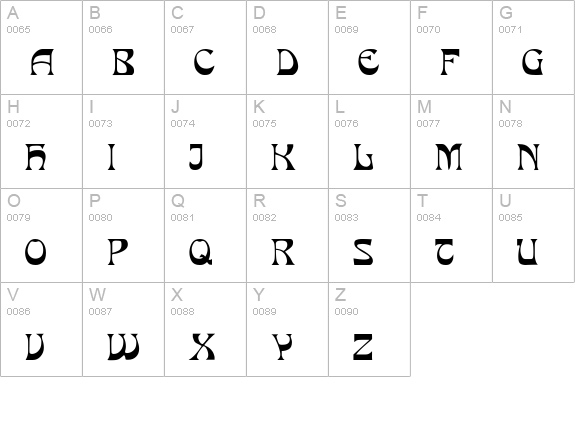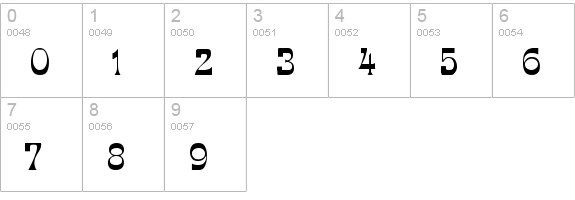
PCMilo Font Details
Introducing PCMilo, a stunning and versatile font that is sure to captivate both designers and typographers alike. This elegant typeface exudes a timeless appeal, with its clean lines and sophisticated curves. PCMilo is the perfect choice for a wide range of design projects, from logos and branding to editorial layouts and signage. What sets PCMilo apart is not only its impeccable design but also the fact that it is absolutely free. Yes, you heard that right! This remarkable font can be freely downloaded at FontsMarket.com, making it accessible to everyone who appreciates high-quality typography without breaking the bank. PCMilo offers a harmonious balance between classic elegance and contemporary flair. Its carefully crafted letterforms display a refined aesthetic that effortlessly elevates any design it graces. From its graceful serifs to its smooth strokes, PCMilo exudes a sense of sophistication that is simply irresistible. With multiple weights and styles available, PCMilo provides endless possibilities for creative expression. Whether you're aiming for a bold statement or a subtle touch of refinement, this font has got you covered. Its versatility makes it suitable for a wide range of design projects, ensuring that you can always find the perfect fit for your vision. PCMilo is not just a font; it's a powerful tool that empowers designers to bring their ideas to life with ease. Its legibility ensures that your message is conveyed effortlessly, while its exquisite details add a touch of personality to your designs. With PCMilo, your projects will stand out from the crowd, leaving a lasting impression on your audience. So why wait? Experience the beauty and versatility of PCMilo today by downloading it for free at FontsMarket.com. Join the growing community of designers who have discovered this hidden gem and unlock a world of creative possibilities. Don't miss out on this incredible opportunity to enhance your designs with a font that is as stunning as it is accessible.